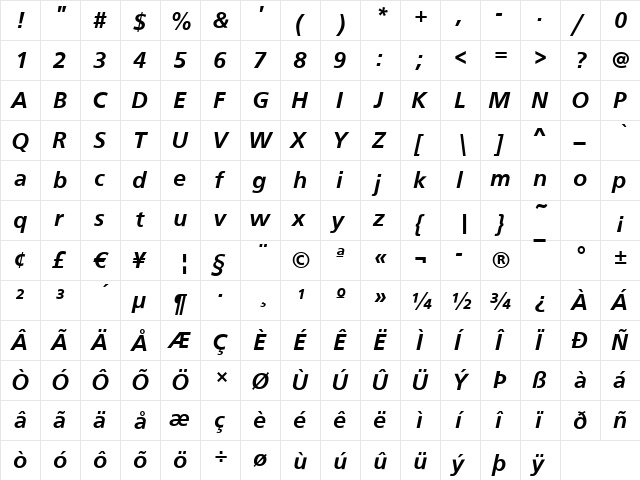
FrontPage MediumItalic
Design Context for FrontPage Typeface
FrontPage takes a measured approach to typography — its balanced proportions and neutral character make it a reliable workhorse for both digital and print work. Its italic angle brings a sense of urgency and motion to the letterforms.
Pro Tip: Try FrontPage for annotation and caption copy alongside an upright companion — the contrast in angle creates a dynamic but ordered typographic system.